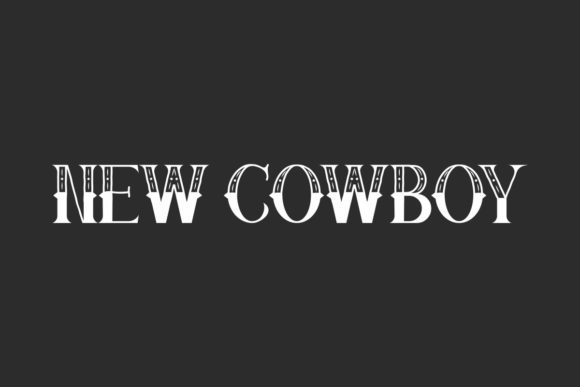
Are you tired of using the same old fonts over and over again? Do you want to add a touch of western style to your designs? Look no further than New Cowboy Font, the perfect addition to your font collection.
Created by Vintype, New Cowboy Font is a stunning display font that captures the essence of the Wild West. It is the perfect choice for anyone looking to add a unique and eye-catching touch to their designs.
With its bold and rugged appearance, New Cowboy Font is perfect for product packaging, branding projects, magazine covers, and social media posts. It is also a popular choice for weddings, adding a touch of rustic charm to any invitation or program.
But New Cowboy Font is more than just a pretty face. It is also incredibly versatile, making it a great choice for a wide range of projects. Whether you are designing a logo or creating a text overlay for a video, this font has got you covered.
And with its clean lines and easy-to-read characters, New Cowboy Font is sure to make a lasting impression on your audience. So why settle for boring, ordinary fonts when you can make a statement with New Cowboy Font?
In short, if you are looking for the best font for text logos, look no further than New Cowboy Font. Its western charm and versatility make it the perfect choice for any project.